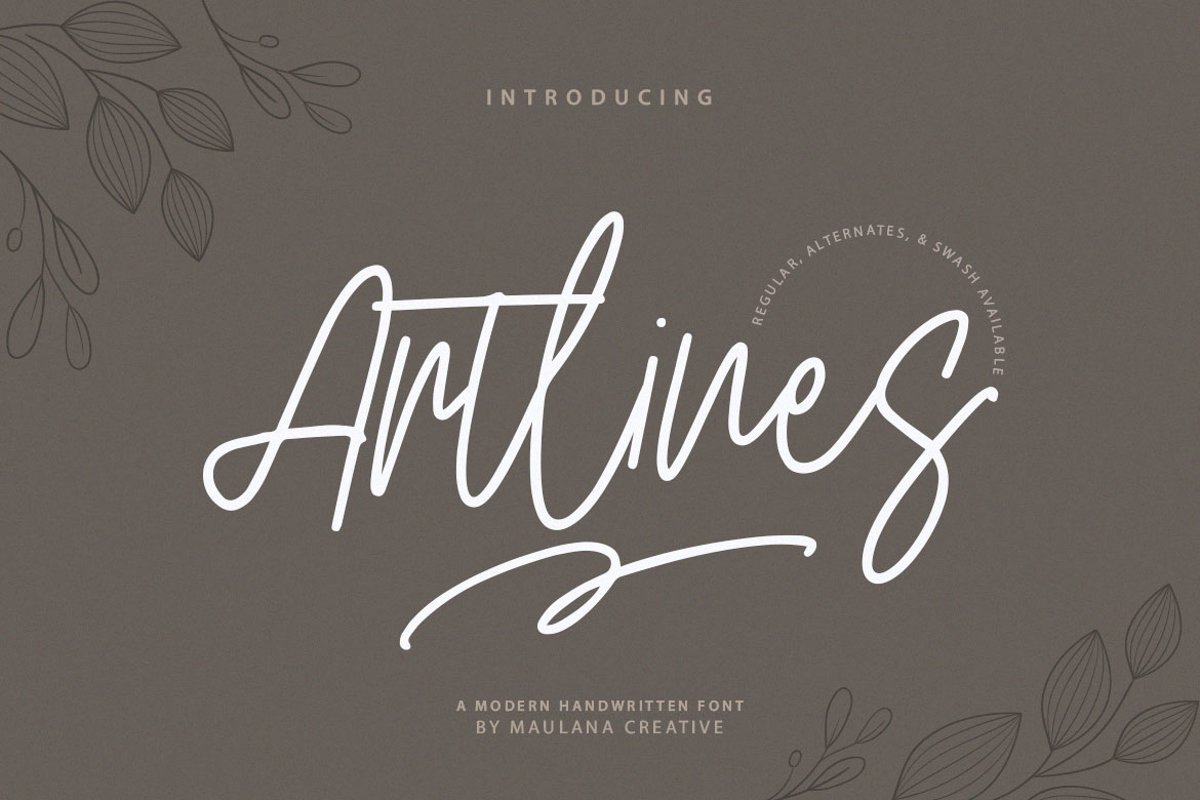
Give your designs an authentic handcrafted feel. "Artlines" is perfectly suited to signature, stationery, logo, typography quotes, magazine or book cover, website header, clothing, branding, packaging design and more.